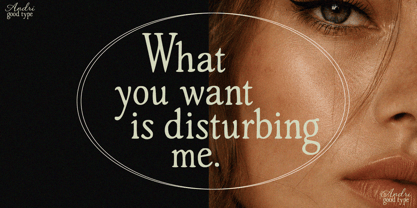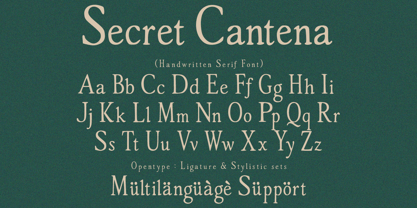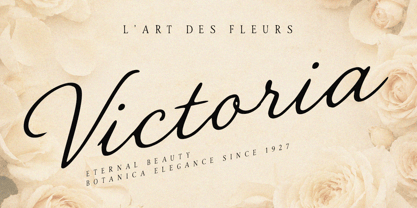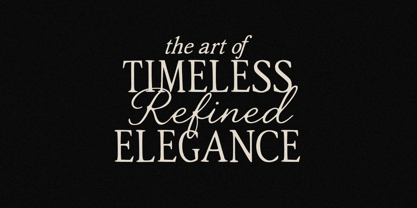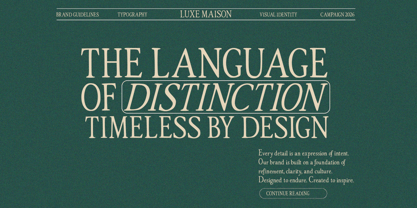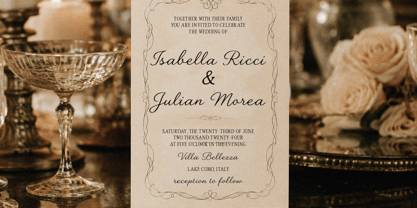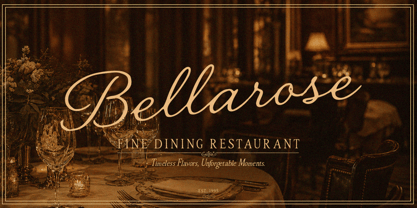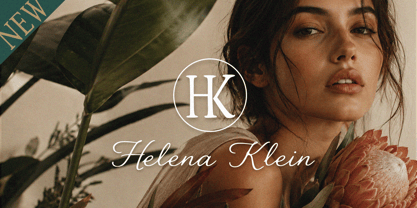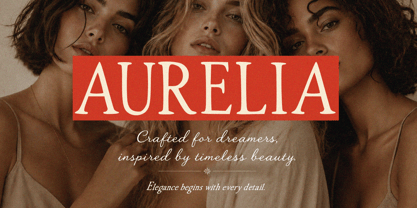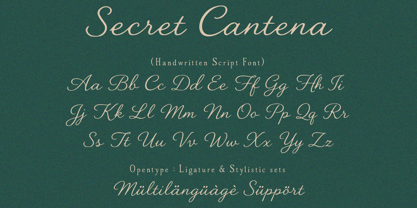
Secret Cantena
The Secret Cantena Font Family was designed by Andri Kurniawan and published by Struggle Studio. Secret Cantena contains 3 styles and family package options. More about this family
Secret Cantena – Handwriting Serif and Script Font
Proudly presented by Struggle Studio, Secret Cantena is an exquisite font trio concept that seamlessly blends the timeless elegance of a serif with the organic, flowing touch of handwriting and script styles. Inspired by classic romance and modern sophistication, this typeface delivers a warm, intimate, and luxurious aesthetic to any design.
Secret Cantena is highly versatile and perfect for high-end branding, wedding invitations, editorial layouts, logo design, book covers, social media packaging, and emotional advertising. Elevate your creative projects with the unique charm of Secret Cantena.